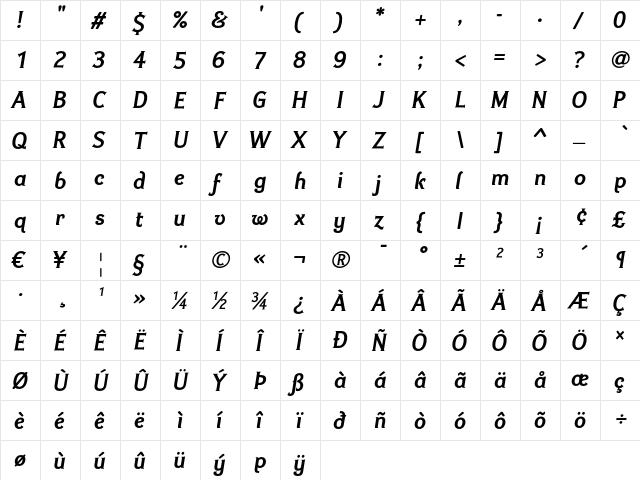
Ideal Gothic Bold Italic
Design Context for Ideal Gothic Typeface
Ideal Gothic has the quiet confidence of well-executed sans-serif typography: versatile, unobtrusive, and dependable at any size. Its italic angle brings a sense of urgency and motion to the letterforms. Its bold stroke weight gives it real presence on the page.
A strong choice for UI design, app interfaces, bold signage, and corporate brand systems.
Font Pairing: Use Ideal Gothic for headlines alongside a lighter-weight sans or serif for body copy to establish clear visual hierarchy.
Pro Tip: Pair Ideal Gothic with a display or serif font for headlines — its neutral character makes it an excellent supporting player in complex typographic systems.